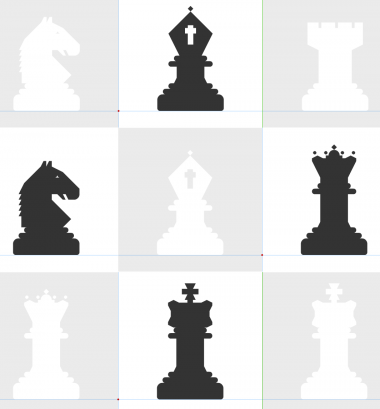
Great idea, Frodo. And beautifully FontStructed too.
Silly question: why did you chose to design the knight facing to the right? I feel it would be more natural to have it facing left (although I can't really explain why :-).
@gferreira: on the "facing" of the Knight. It is a good point, and I can give you three possible answers. But let's have a joke first.
A1: I've made my sketches after a picture of a rose/cherrywood figurine, which happened to be in that position.
A2: As I experimented with bricks to shape a horse, by pure chance I hit upon this pretty configuration, or at least the core of it, and I was happy and content with ever since.
A3: This answer has strong implications with my forthcoming project, and I think it's not wise to talk about it right now.
Bilateral symmetry is a tricky phenomenon, not to be underestimated. I don't know whether it would look "more natural" the other way around or not. To me it's natural enough either ways. However, all commercial chess fonts (e.g. Linares, Hastings, Chess Alpha, just to name a few) have the Knight in the opposite position, so I think I ought to follow the tradition.
Speaking about chess fonts and traditions, there is a Unicode range dedicated to chess symbols (from uni2654 to uni265F), yet unsupported by FS. and there is built in support for in HTML (♔-♟) as well. I wonder why is it, that none of the fonts mentioned above have used it for their character map. They simply placed the figures according to some hobbit sense: white pawn to P, w king to K, w bishop to B, w rook to R, w queen to Q, w knight/horse to H, and the black ones to the corresponding lower case letters, so on and so fort. However, they are occasional and inconsistent if you compare and scrutinize them. Who should I follow to make a truly useable font for typesetting chess? Shall I invent my own keyboard layout?
@pauldhunt: A very good observation. I have noticed that too. Too much black, not easy on the eyes. I've also considered the printer economy: to save a good deal of ink when printed at large sizes. I've been experimenting with different striped and checkered patterns to replace the solid black. It is not easy to find a suitable one, which seamlessly blends with the figures, yet leaves them untouched. Since it is a Top Pick now, I don't want to make any major unsolicited changes on it. It would not be fair. But I'll make a second version with all the healthy modifications incorporated. And more..
Re black: I would leave the black chess piece shapes as they are and only make the representative squares striped. This should work as you already have a white outline around the black piece shapes...
J'ai choisi "la Défense Française" pour le titre au lieu du terme général "échecs" parce que ça sonnait bien. "Le Français" comme une ouverture dans les échecs a une réputation de la solidité et la résilience.
B - white Bishop on black square
b - white Bishop on white sq
H - white Horse/Knight on black sq
h - white Horse/knight on white sq
J - black Horse/Knight on black sq
j - black Horse/Knight on white sq
K - white King on black sq
k - white King on white sq
L - black King on black sq
l - black King on white sq
N - black Bishop on black sq
n - black Bishop on white sq
O - black Pawn on black sq
o - black Pawn on white sq
P - white Pawn on black sq
p - white Pawn on white sq
Q - white Queen on black sq
q - white Queen on white sq
R - white Rook on black sq
r - white Rook on white sq
T - black Rook on black sq
t - black Rook on white sq
W - black queen on black sq
w - black queen on white sq
Y/Space - White square
Z - Black square
Lovely 'dingbats', very detailed as contours only.
it's not monospaced